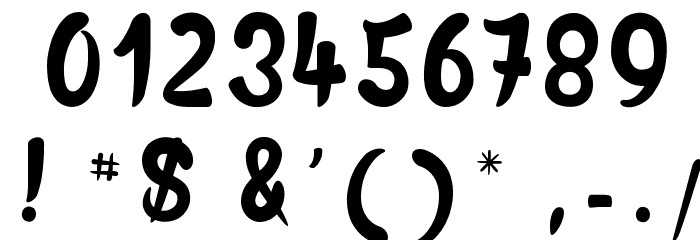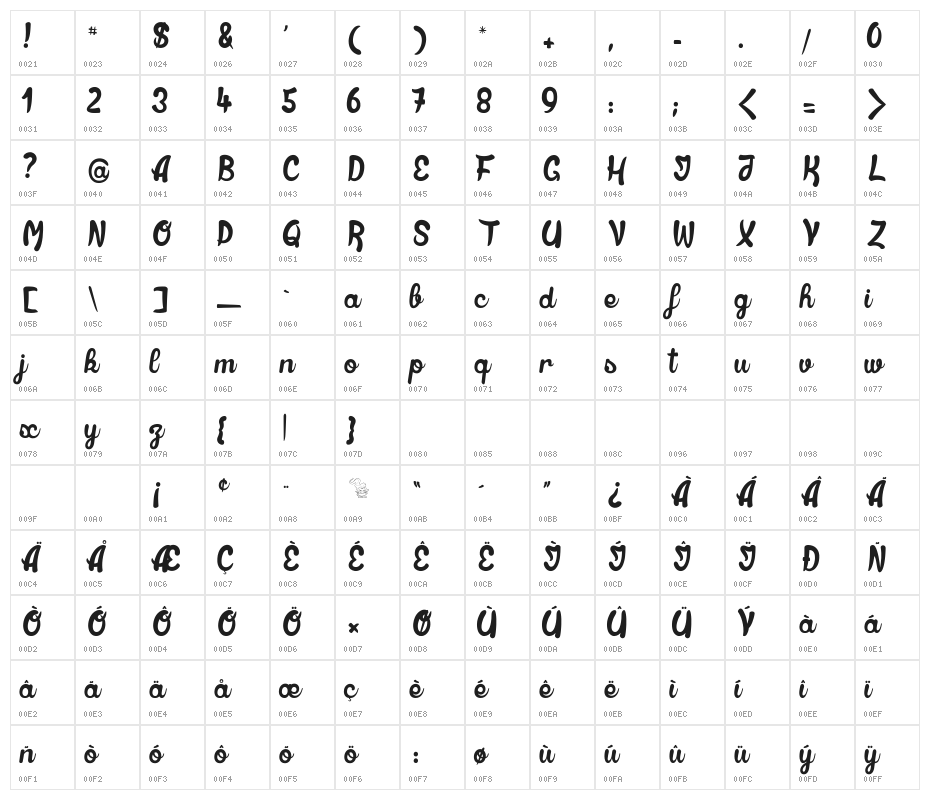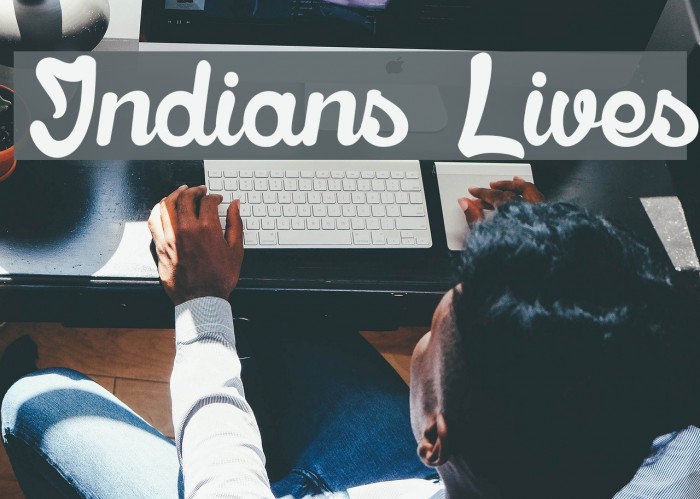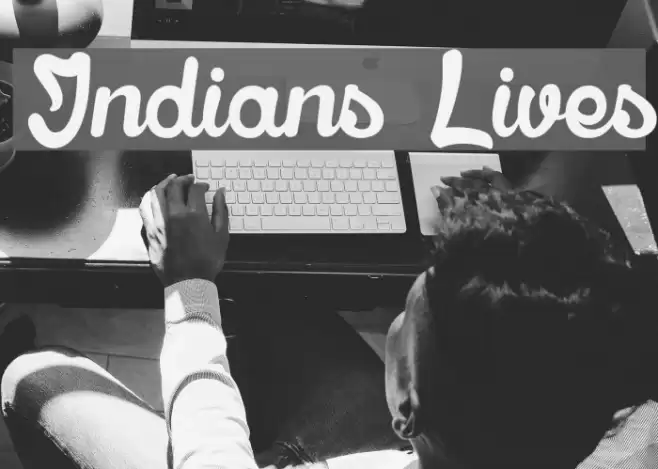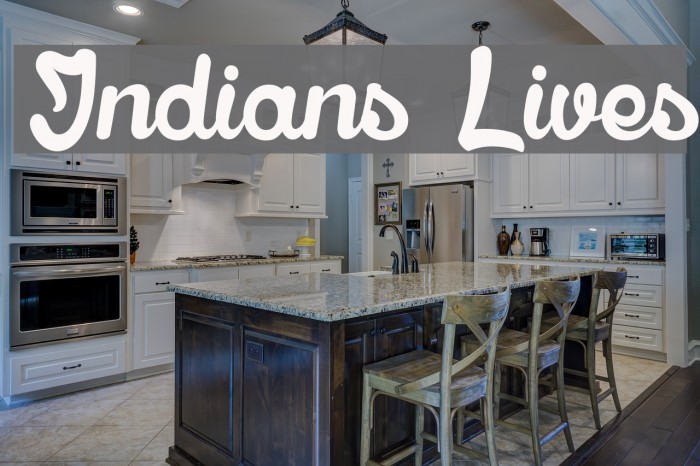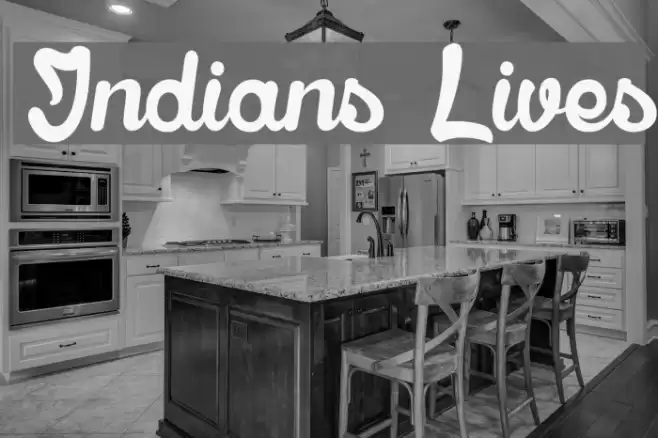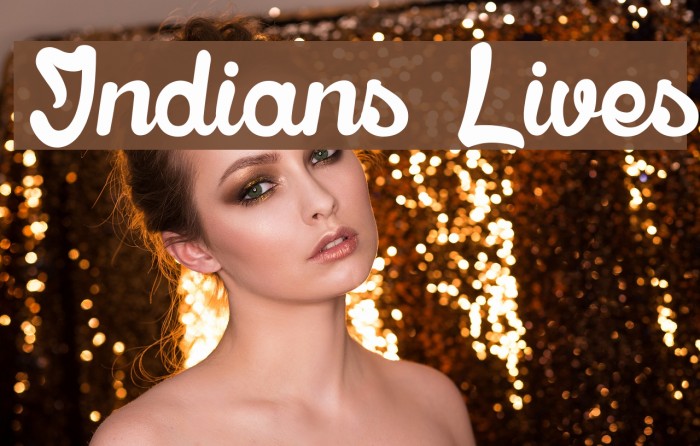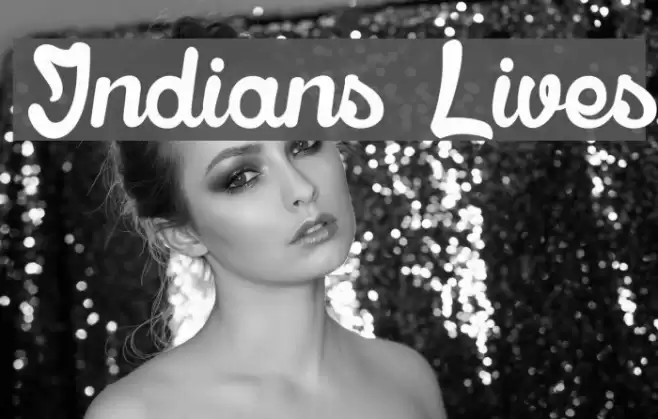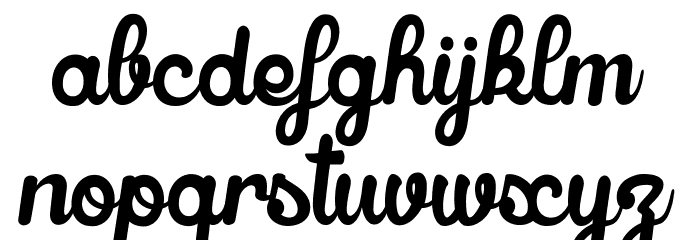
Indians Lives Font
Indians Lives Description
This font features a bold and playful script style with a handwritten feel. The letters are connected and flow smoothly, giving it a dynamic and lively appearance. The uppercase letters are slightly more structured, while the lowercase letters exhibit more fluidity and curves. The numbers maintain the same playful style, ensuring consistency throughout. Special characters are well-integrated, matching the overall aesthetic. This font is ideal for projects that require a personal touch or a sense of fun and creativity.
| Overall Style | Playful, Handwritten |
| Proposed Projects | Perfect for greeting cards, playful branding, children's books, and creative posters. |